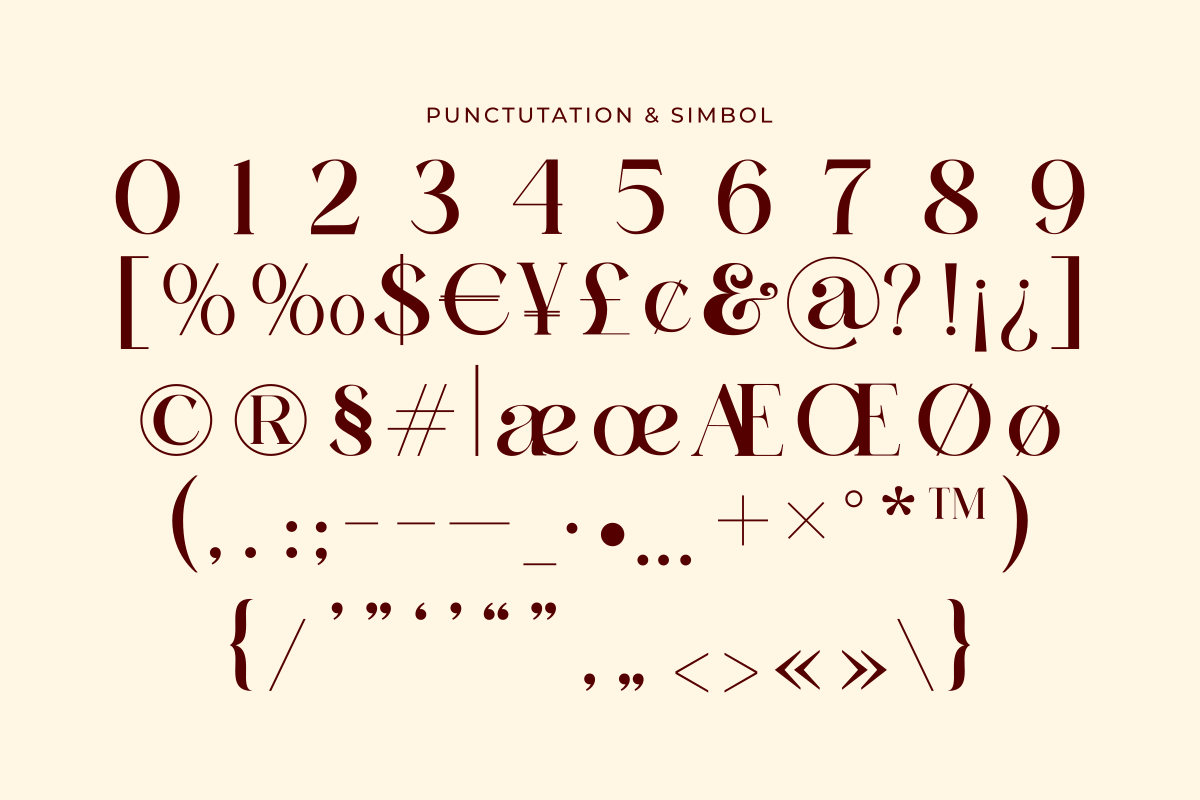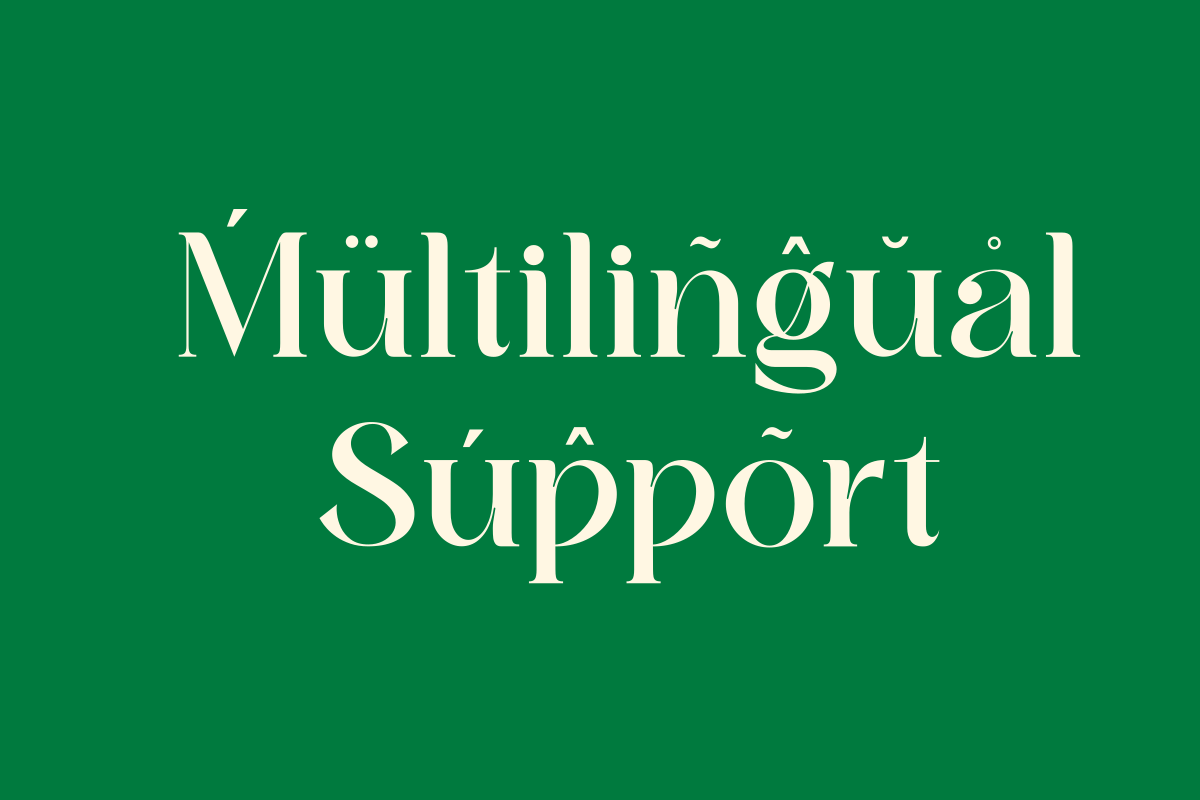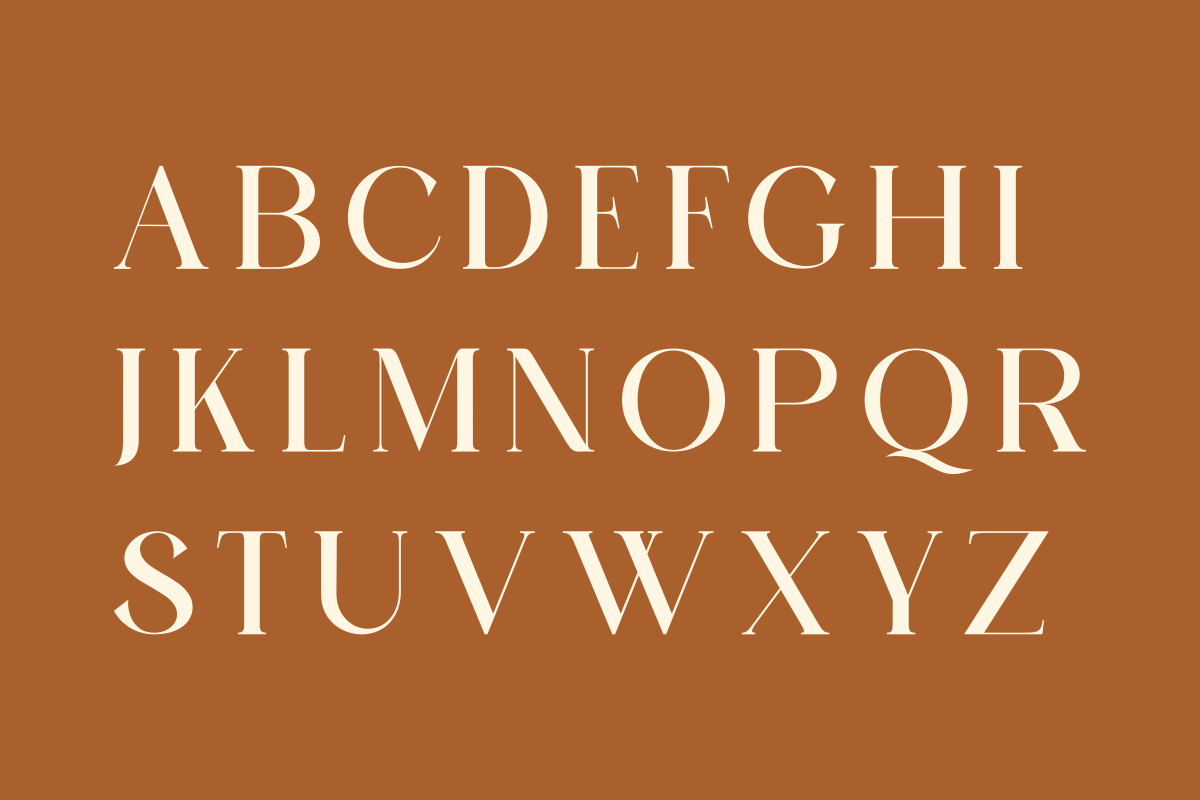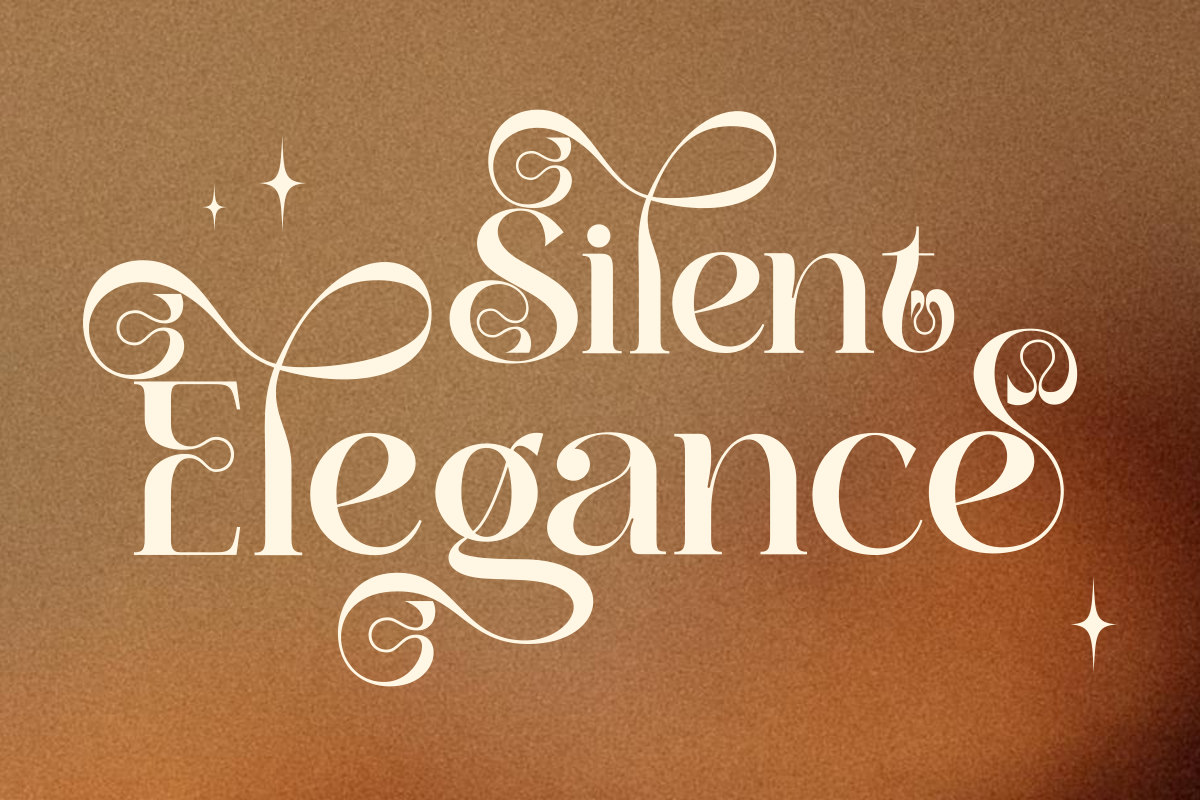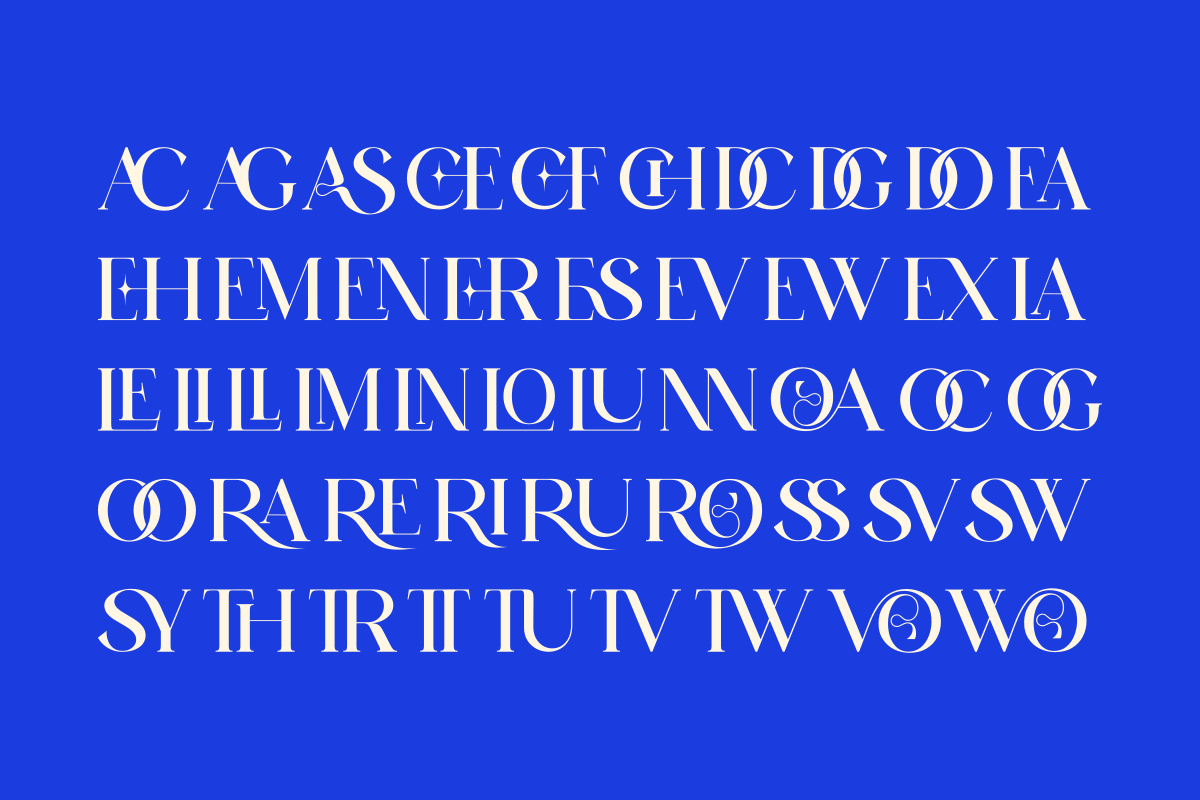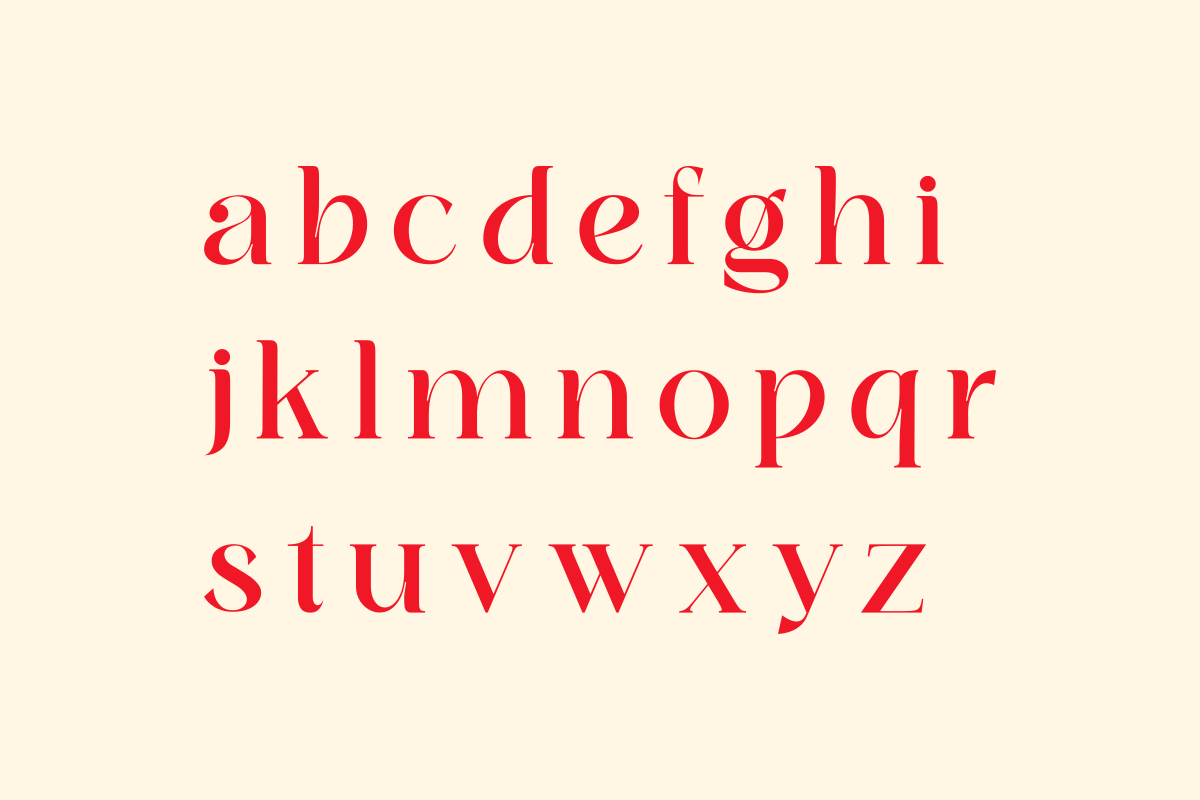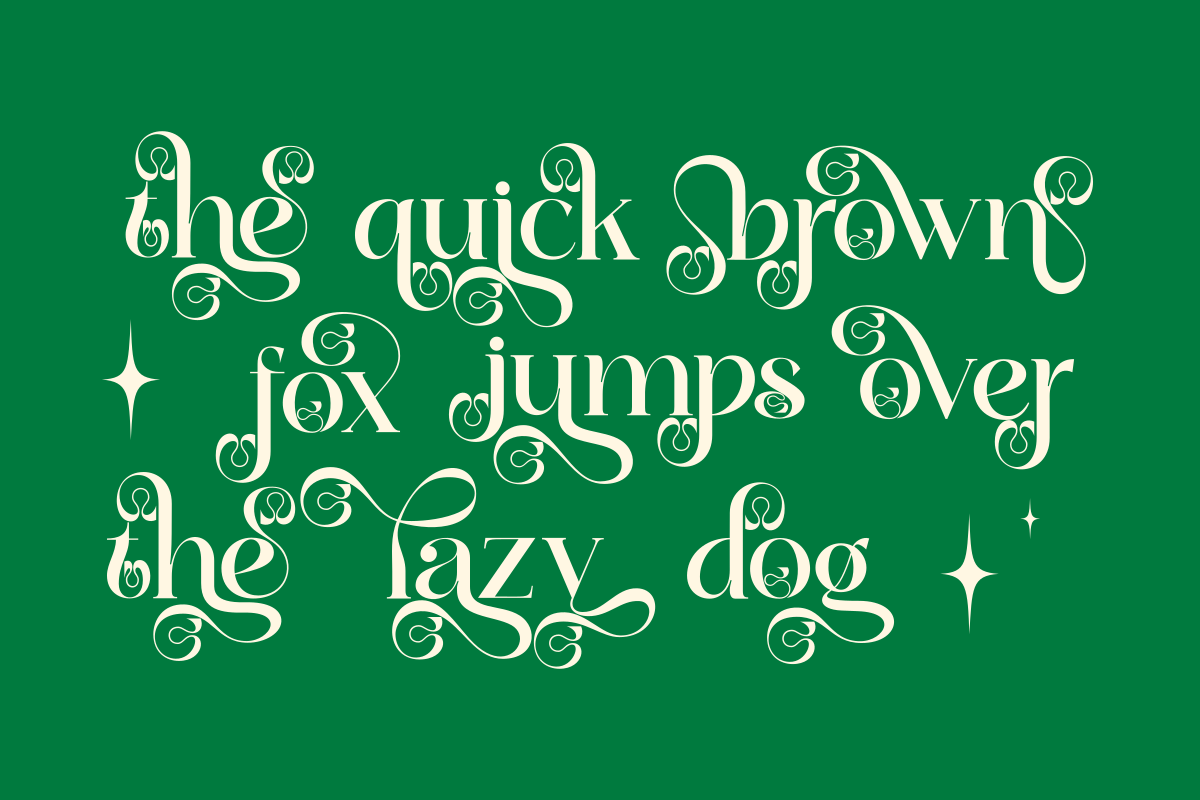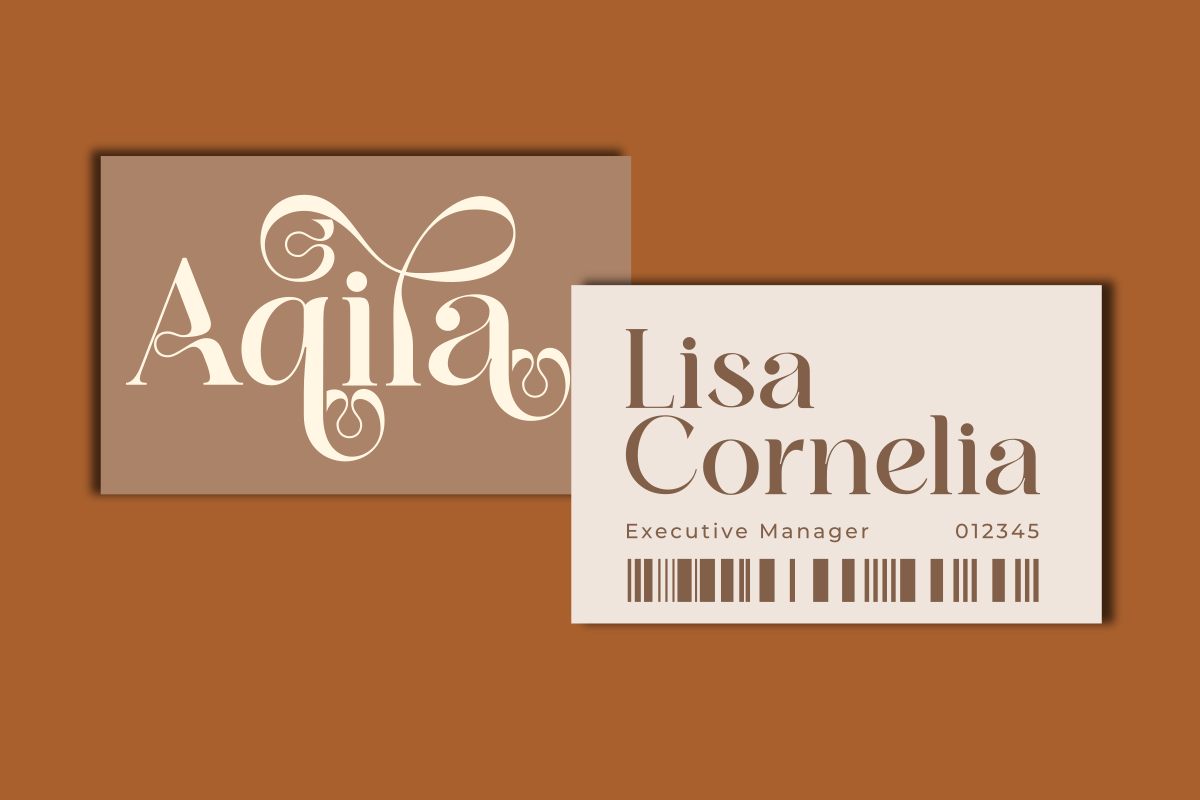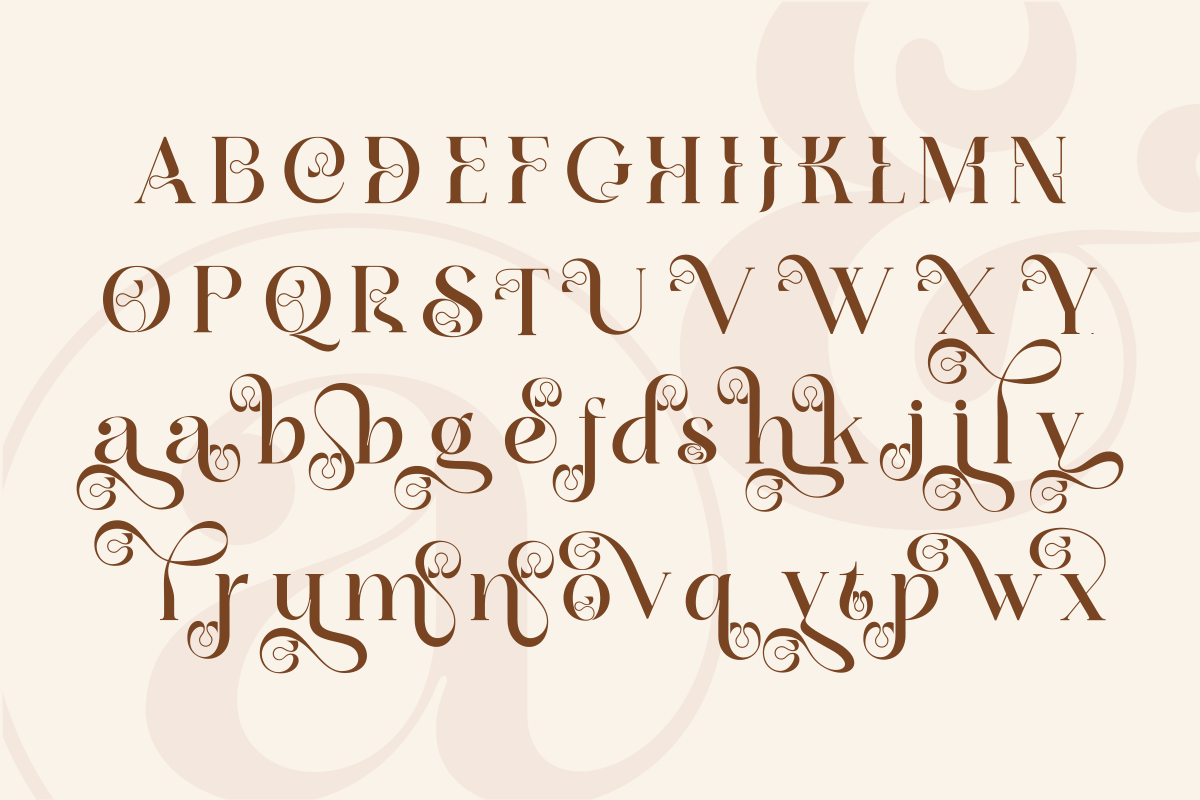
Glasing
Glasing is a serif typeface that blends timeless elegance with a modern touch. Its refined contrasts and graceful serif details make it perfect for editorial design, branding, magazines, and packaging that seek a sophisticated and professional look. Designed with balance and style, Glasing brings a sense of luxury and classic charm to both headlines and body text